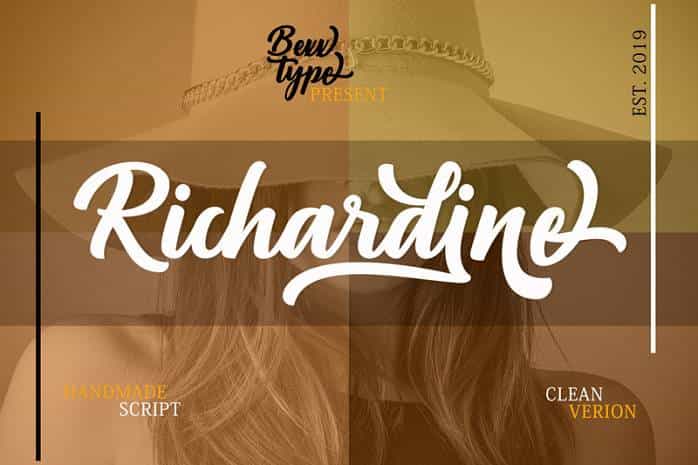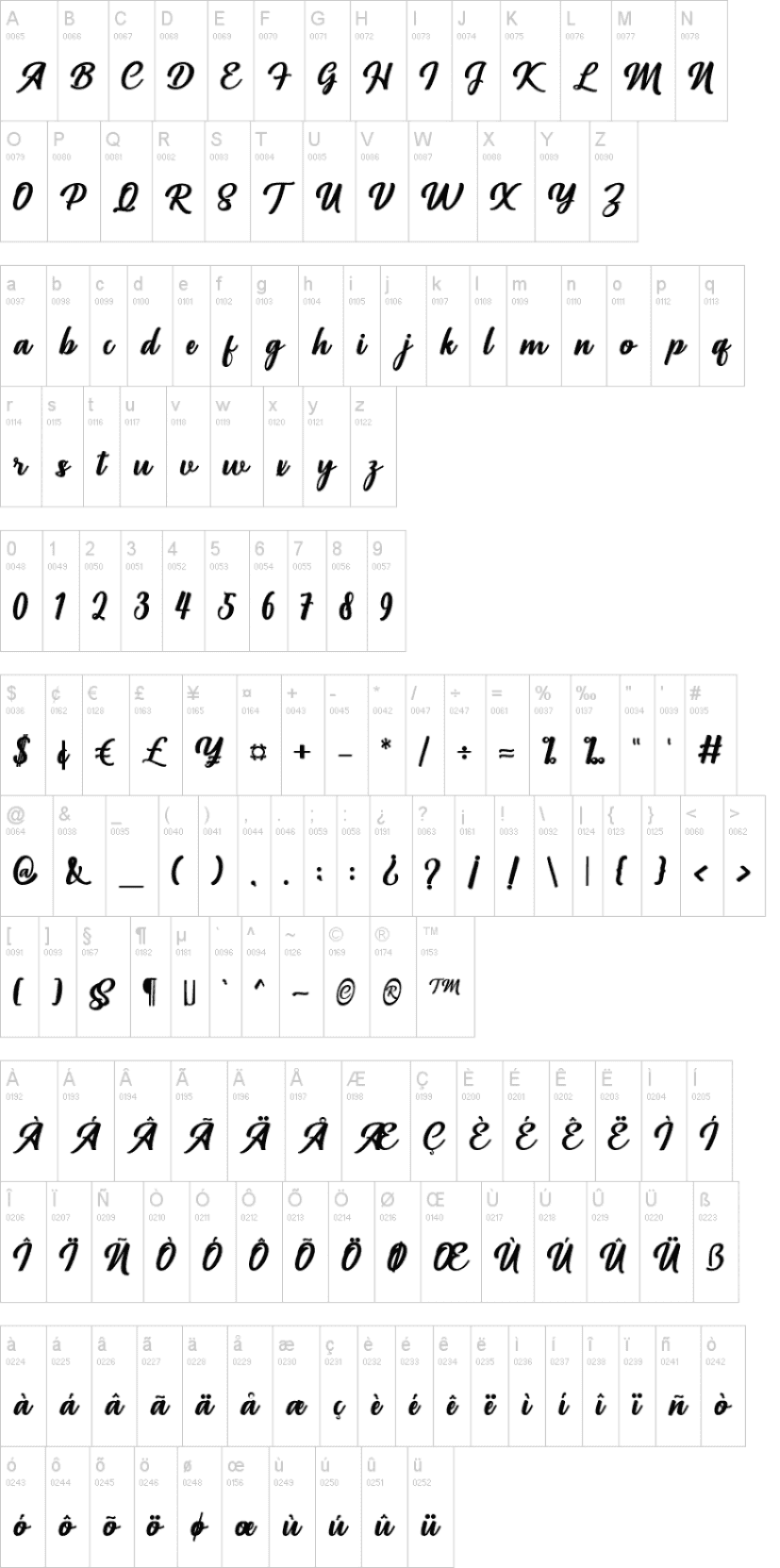
Discover Richardine Font, part of the Calligraphy collection—a versatile and unique font perfect for adding a personal touch to your projects. Download it for free and enjoy crafting designs with style, from invitations to social media posts. This font is available exclusively for personal use, giving you the freedom to create without limits. Unlock your creativity with Richardine Font today!
Richardine is a top-quality Calligraphy typeface, designed by Bexxtype, and it is free to download and use for personal projects. The demo version delivers all the letters in lower case and upper case along with few special characters as well.